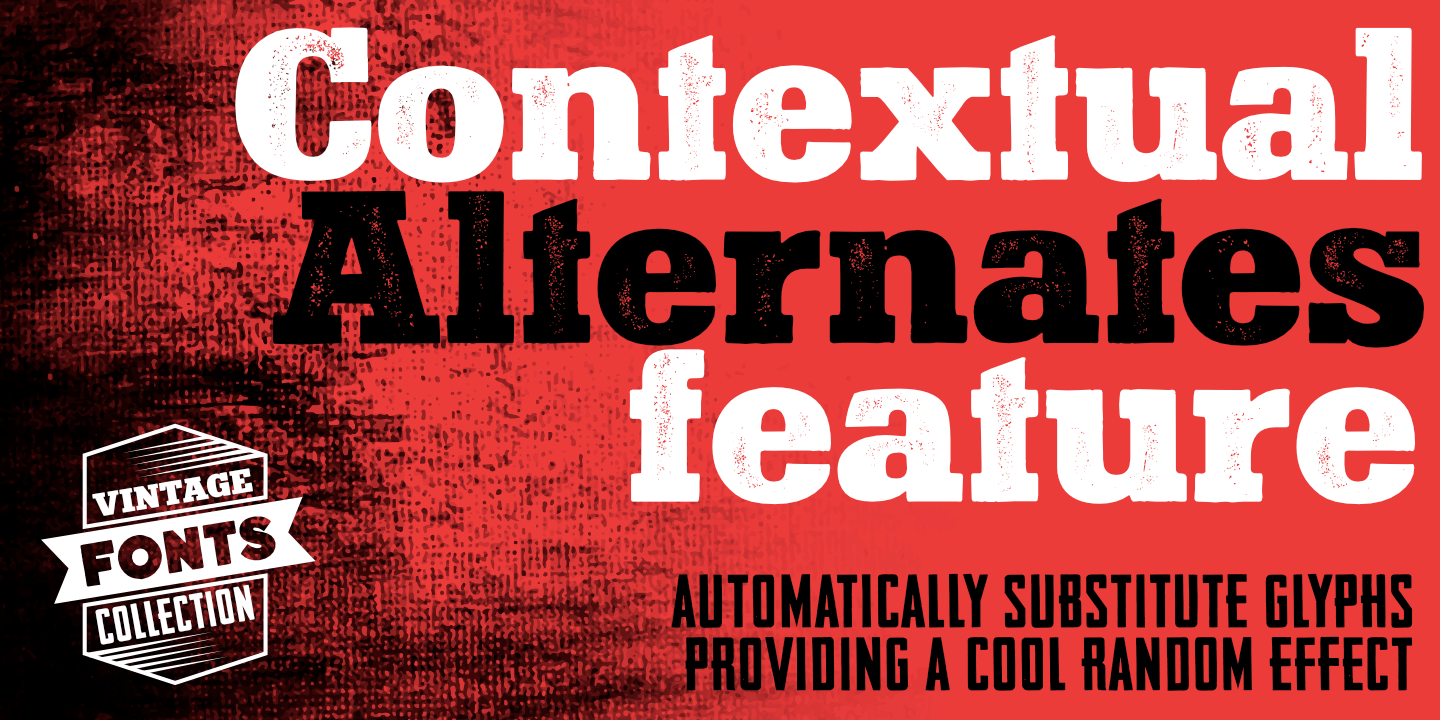
Vintage Fonts Collection is perfect for retro branding projects, classic advertising recreations, antique shop signage, nostalgic event materials, heritage brand revivals, period-themed restaurants, historical museum exhibits, vintage wedding designs, old-fashioned product packaging, and authentic Americana graphics.
Vintage Fonts Collection is exciting because it captures the timeless charm and nostalgic appeal of bygone eras through its carefully curated selection of period-authentic letterforms that transport modern audiences back to golden ages of design while delivering messages with historical authenticity and enduring style.
Vintage Fonts Collection family includes Art Deco, Victorian, Retro Script, Classic Sans, Ornamental, Industrial, Handlettered, and Americana variations, providing designers with a complete historical toolkit to create authentic period communications that honor typographic heritage across multiple design eras.
Vintage Fonts Collection represents a comprehensive celebration of typographic history and design heritage, making it an indispensable resource for designers, historians, and brands seeking to connect with the aesthetic traditions that shaped modern visual culture. This curated typeface collection brings historical authenticity to any design project, whether you're developing heritage brand identities, creating period film materials, or designing educational exhibits about design history. The meticulously researched character designs of Vintage Fonts Collection Free Download ensure period accuracy while maintaining excellent readability across both traditional print applications and contemporary digital platforms celebrating design heritage and nostalgic aesthetics.
Design industry professionals consistently select Vintage Fonts Collection for retro brands, historical recreations, and nostalgic marketing campaigns because of its ability to instantly communicate authenticity, craftsmanship, and connection to design traditions that shaped American visual culture. The collection's diverse period styles make it particularly effective for targeting audiences who appreciate historical design and creating brand experiences that honor typographic craftsmanship.
Vintage Fonts Collection excels in hospitality and retail environments where nostalgia and authentic character are essential brand elements. Classic diners, antique stores, and heritage hotels rely on this collection to create materials that transport customers to beloved historical periods while maintaining contemporary accessibility and commercial appeal.
The entertainment and publishing sectors have embraced Vintage Fonts Collection for period productions, historical documentaries, and vintage-inspired publications. Its authentic historical character helps creators establish proper time periods and cultural contexts, appealing to audiences seeking genuine connections to the aesthetic traditions and cultural values of America's design heritage.